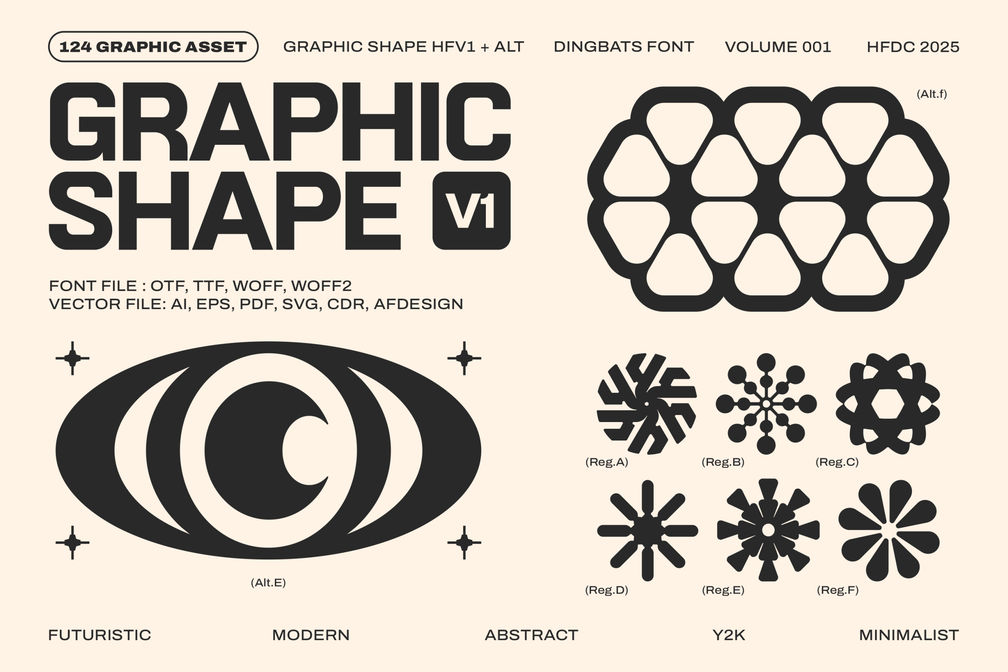
Graphic Shape HF Vol. 001 – Vector Asset
Minimalist, futuristic graphic assets in vector format and dingbats fonts are easy to use for commercial projects. With an affordable price, you won’t have to waste time designing from scratch.
• Get 124 design vector assets
• Unique designs